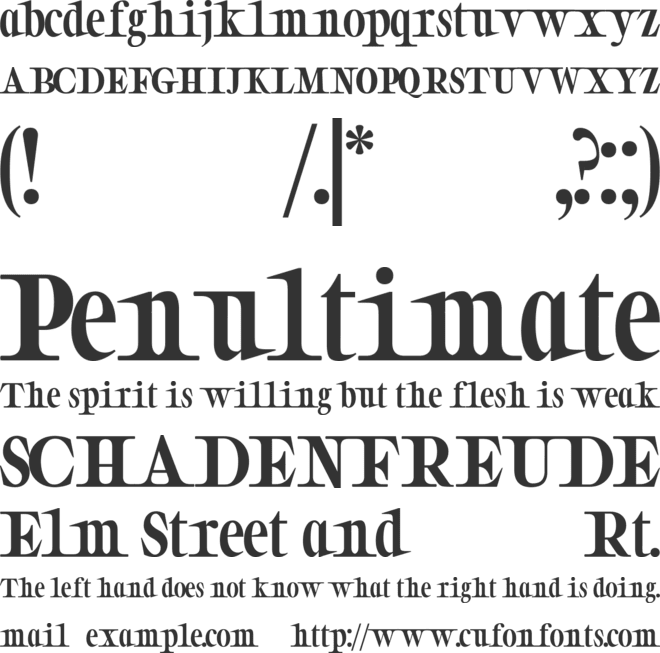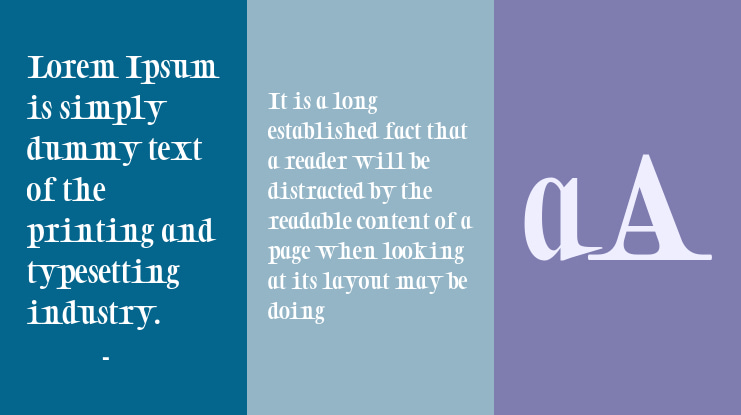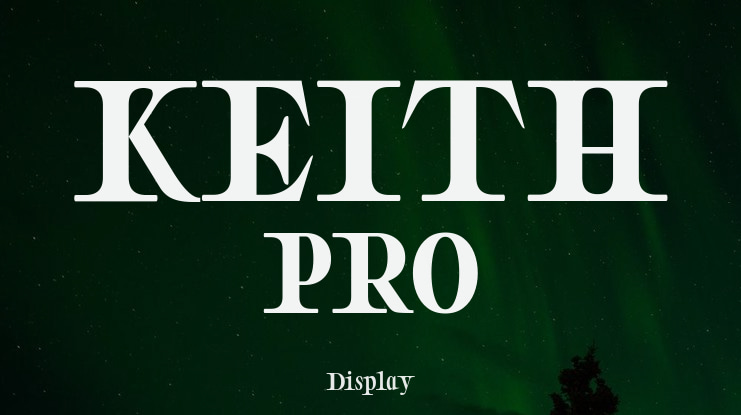
KEITH PRO Font
🎨 Font Name: [Keith-Pro] by Minimalist Art Studio
🎨 Font Description: KEITH is an elegant serif with multilingual support, small caps, and alternate glyphs—perfect for premium branding, editorial design, and timeless packaging.
✔ Complete Latin set + multilingual diacritics
✔ Alternates, stylistic sets & ligatures
✔ Numbers, small caps, and extended punctuation
✔ Bonus italics and family styles